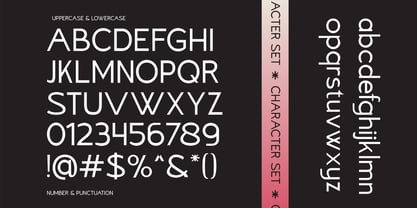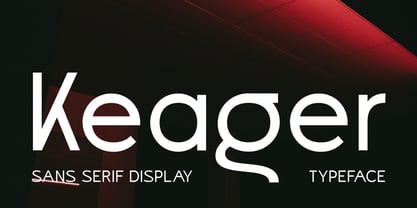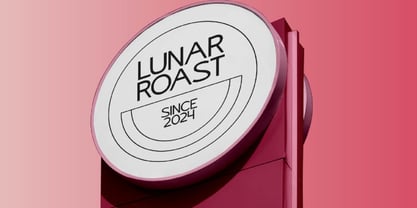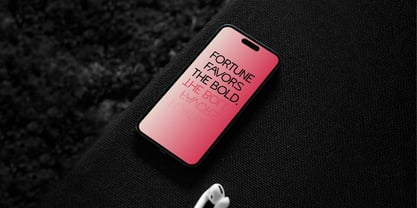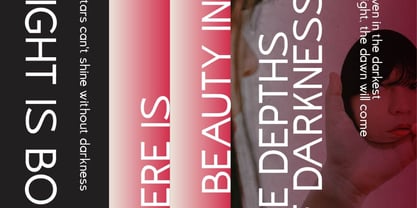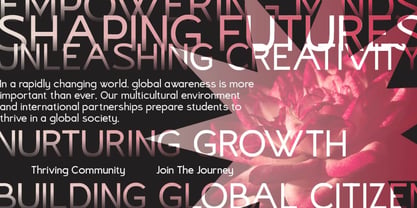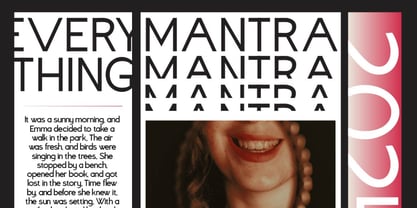
Keager
Keager is a modern sans serif display font that blends clean geometry with an artistic twist. Featuring sleek lines, generous spacing, and uniquely sculpted characters, Keager brings a minimalist yet expressive tone to any design. With full uppercase and lowercase letters, punctuation, numbers, and a variety of ligatures and stylistic alternates, this typeface is crafted for optimal versatility and creativity across multiple design scenarios. Keager’s distinct character shapes combine clarity with a subtle sense of movement, offering a unique visual rhythm that stands out in contemporary branding. Its strong typographic presence makes it ideal for high-impact headlines, modern web design, and sophisticated editorial layouts. The font performs beautifully in both print and digital formats, maintaining balance and elegance whether used at large display sizes or refined body text.